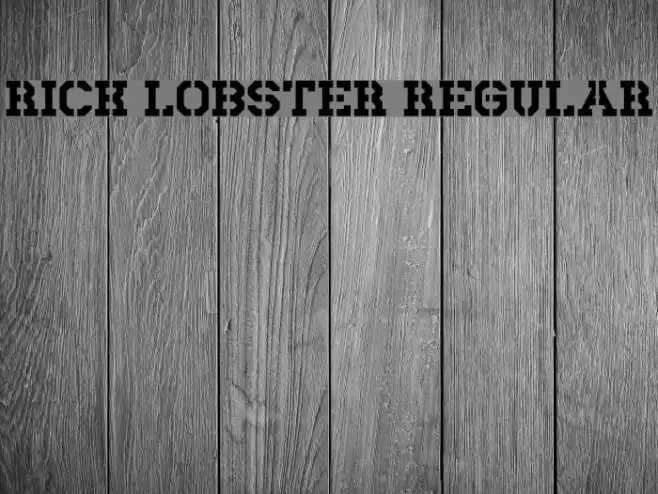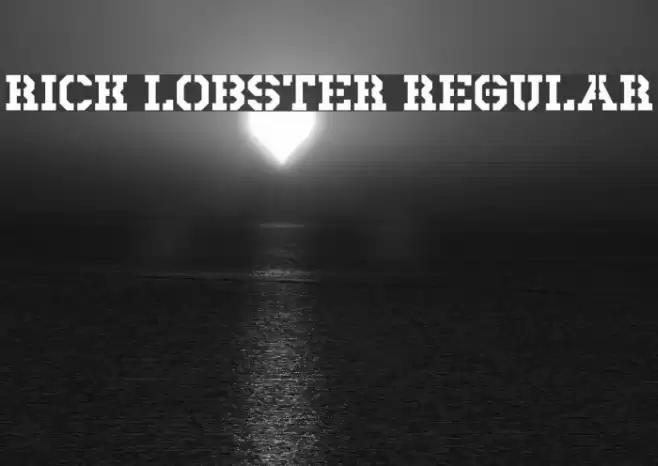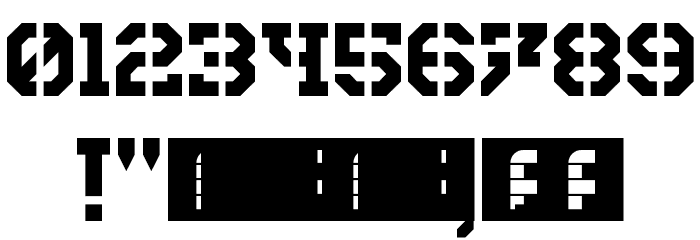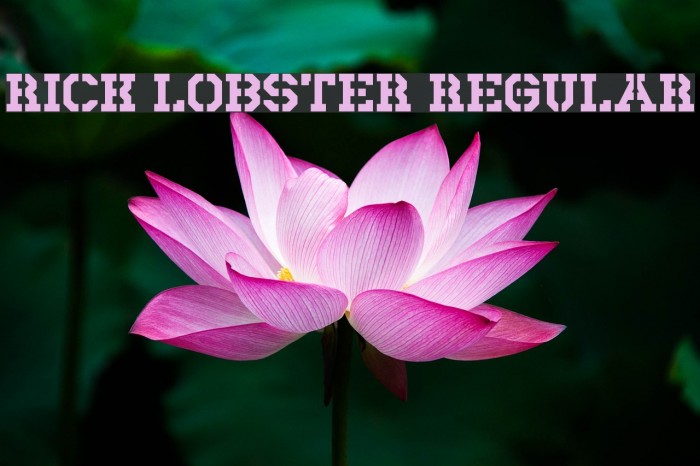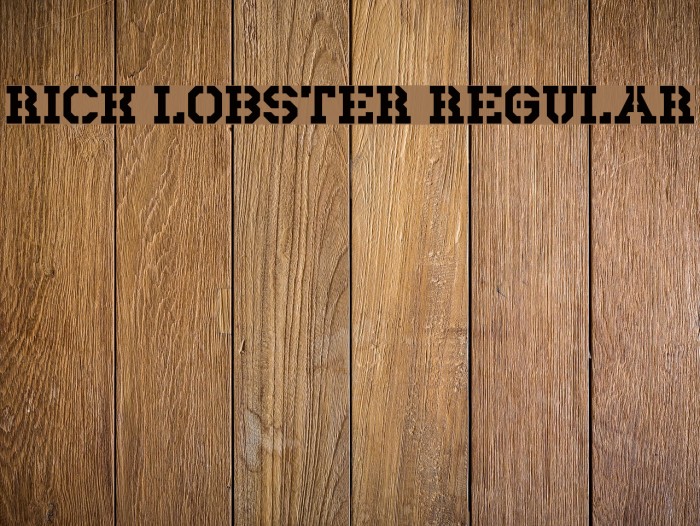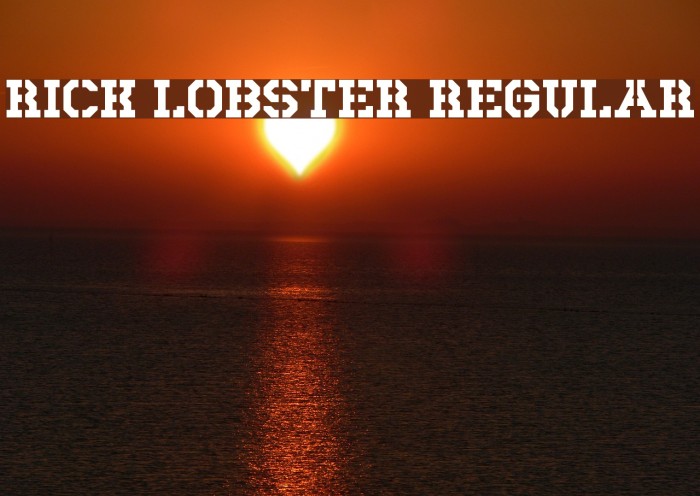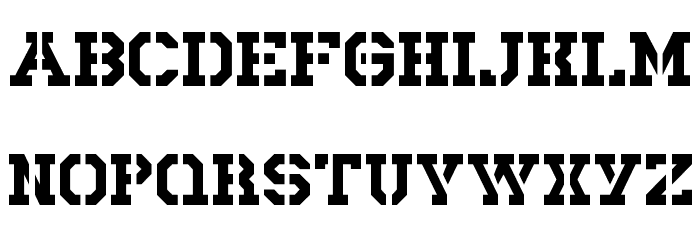
Rick Lobster Regular Font
Rick Lobster Regular Description
This font features a bold and striking design with a stencil-like appearance. The characters are constructed with solid, geometric shapes, giving them a strong and industrial feel. The uppercase letters are particularly prominent, with sharp angles and clean lines that create a sense of precision and modernity. The numbers and special characters maintain this cohesive style, ensuring consistency across all elements. This font's unique aesthetic makes it ideal for projects that require a bold statement or a modern, edgy look.
A bold, stencil-like font with a modern, industrial aesthetic from Uncategorized fonts.
- Proposed Projects: Ideal for branding, posters, signage, and any design requiring a strong, modern impact.